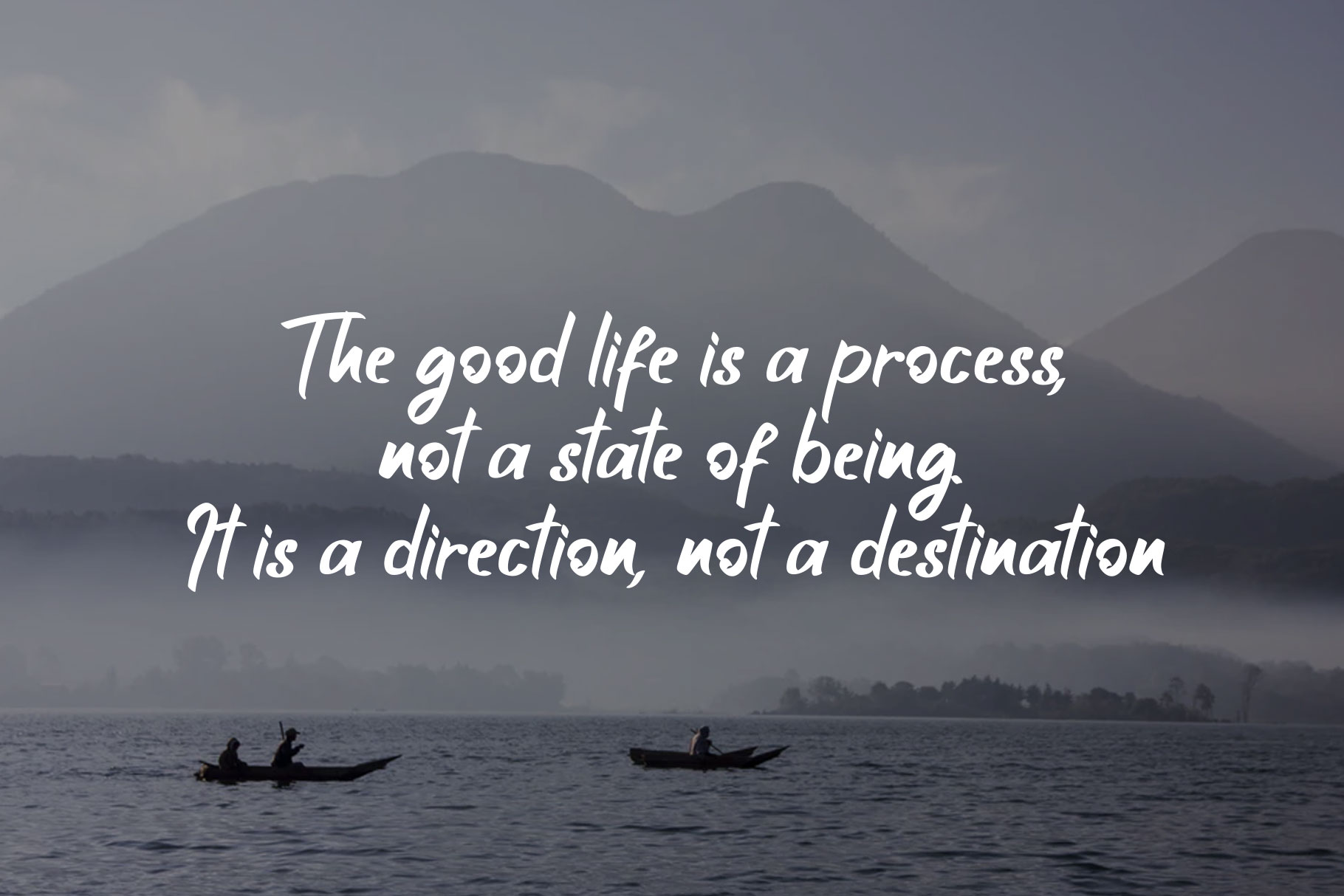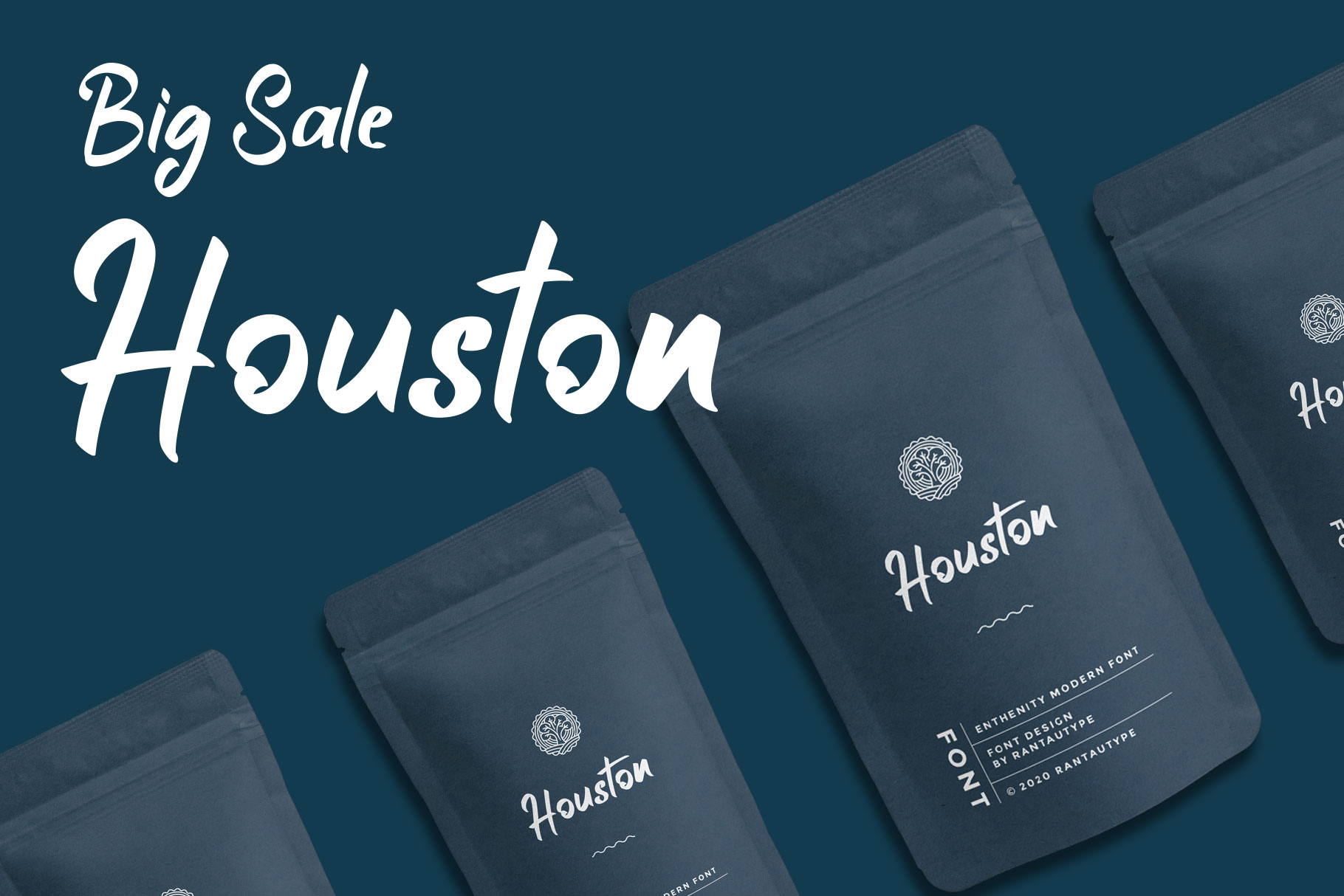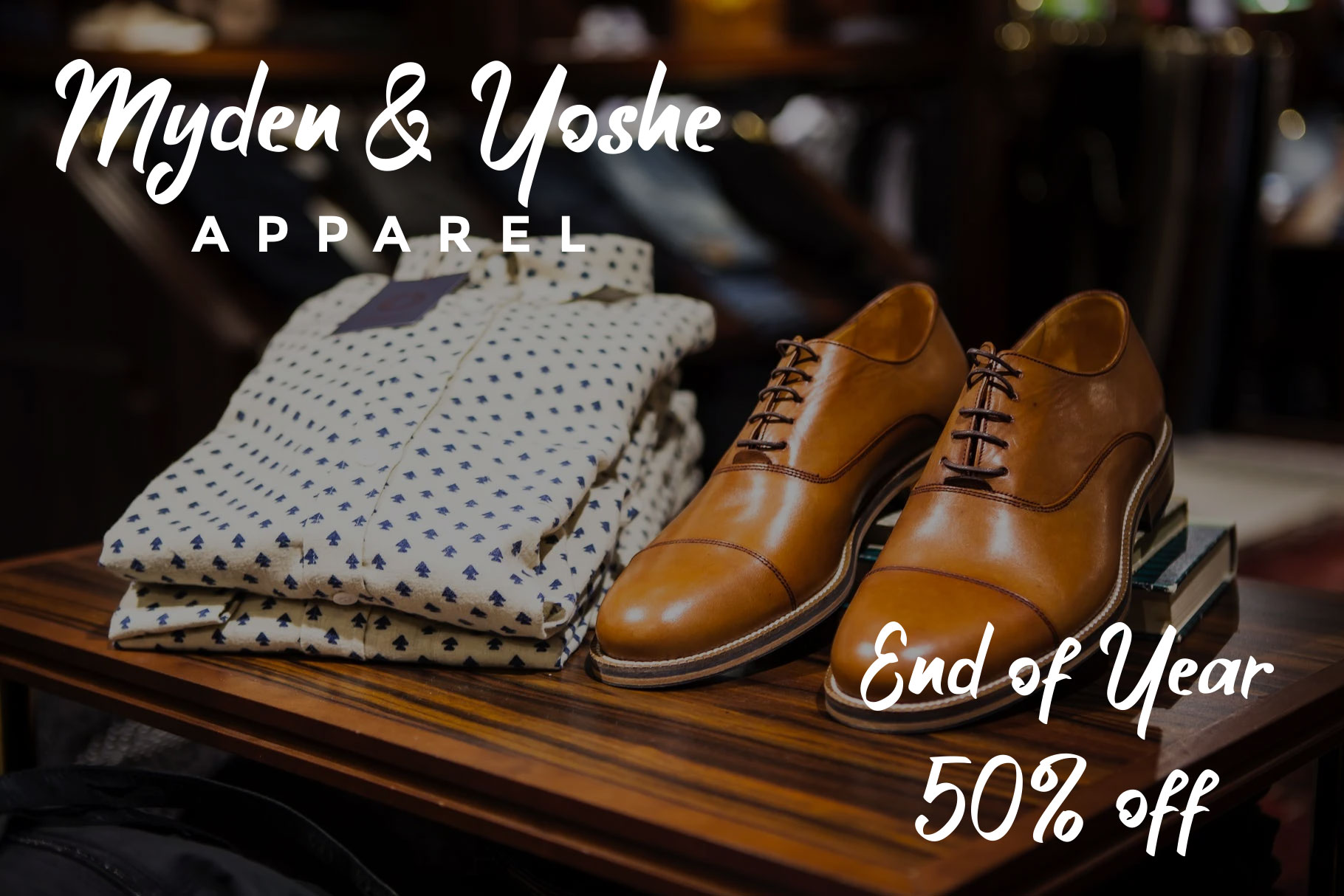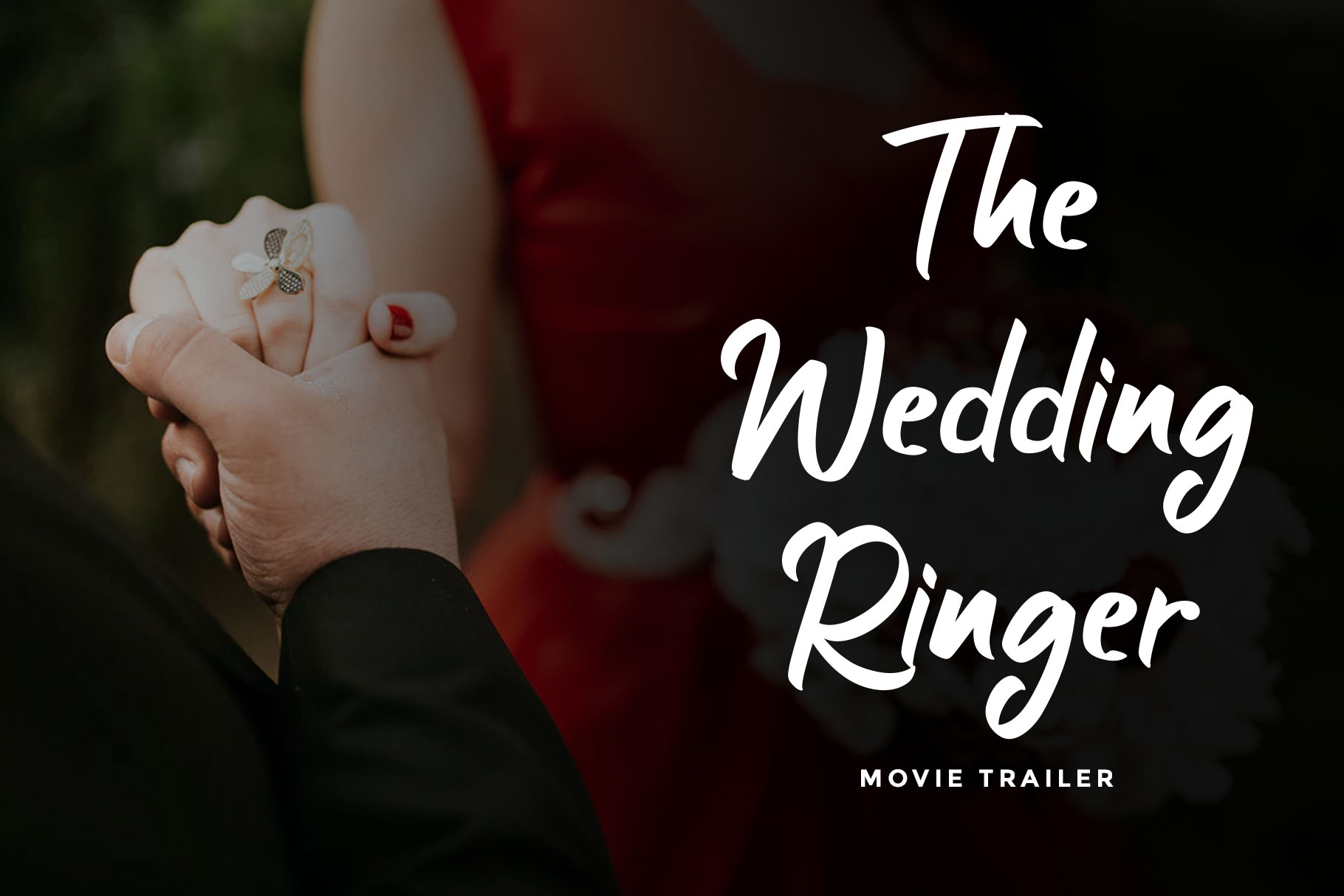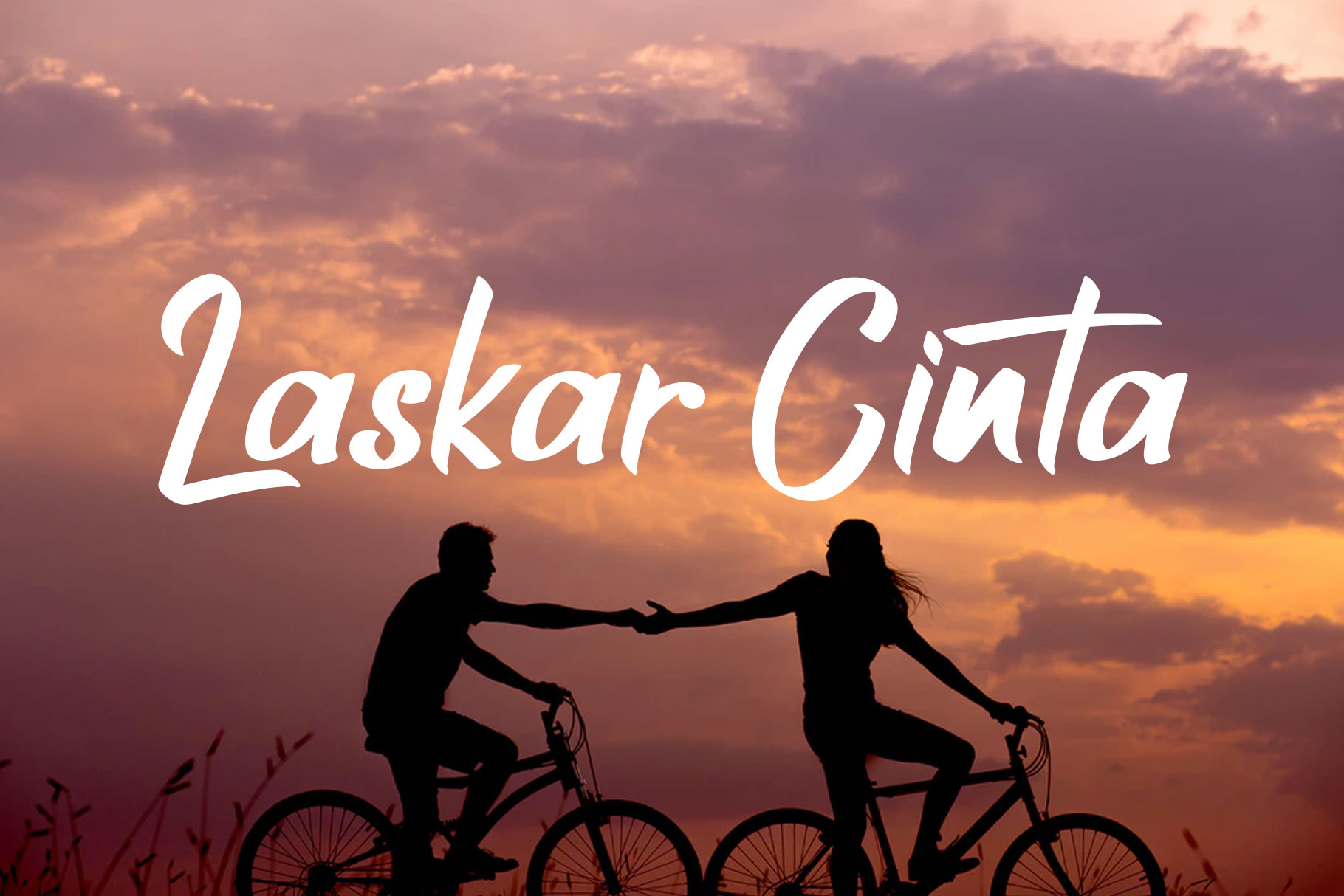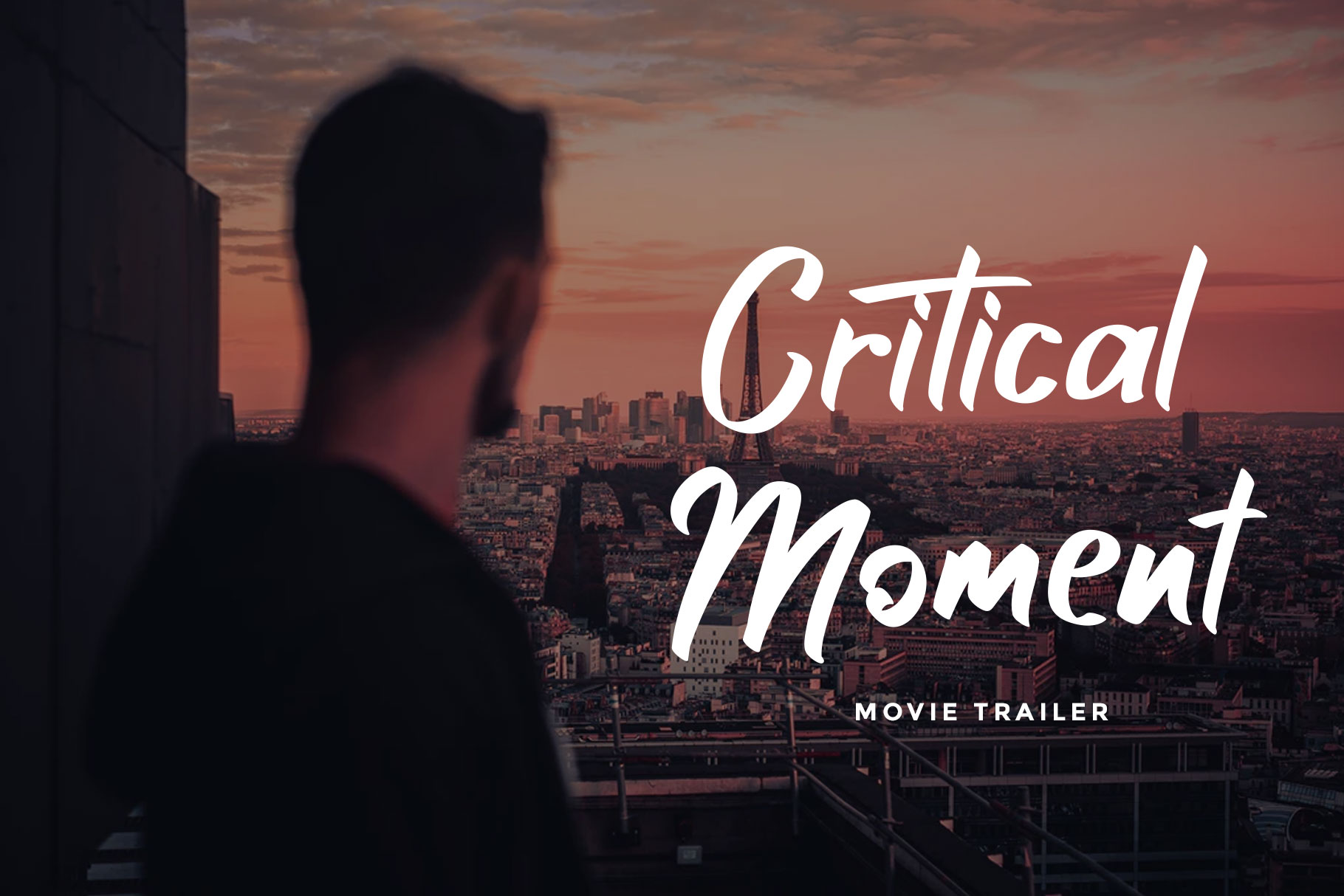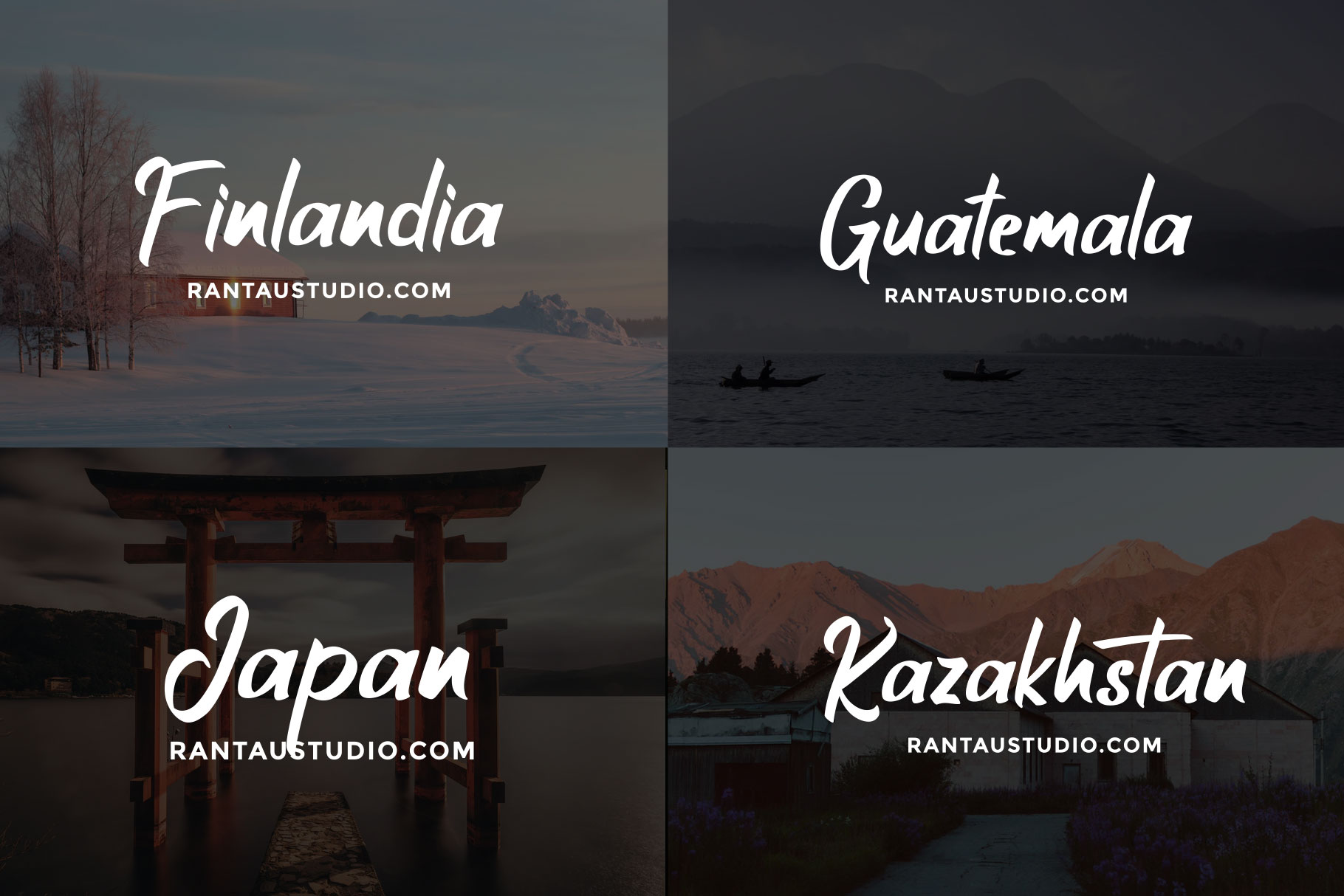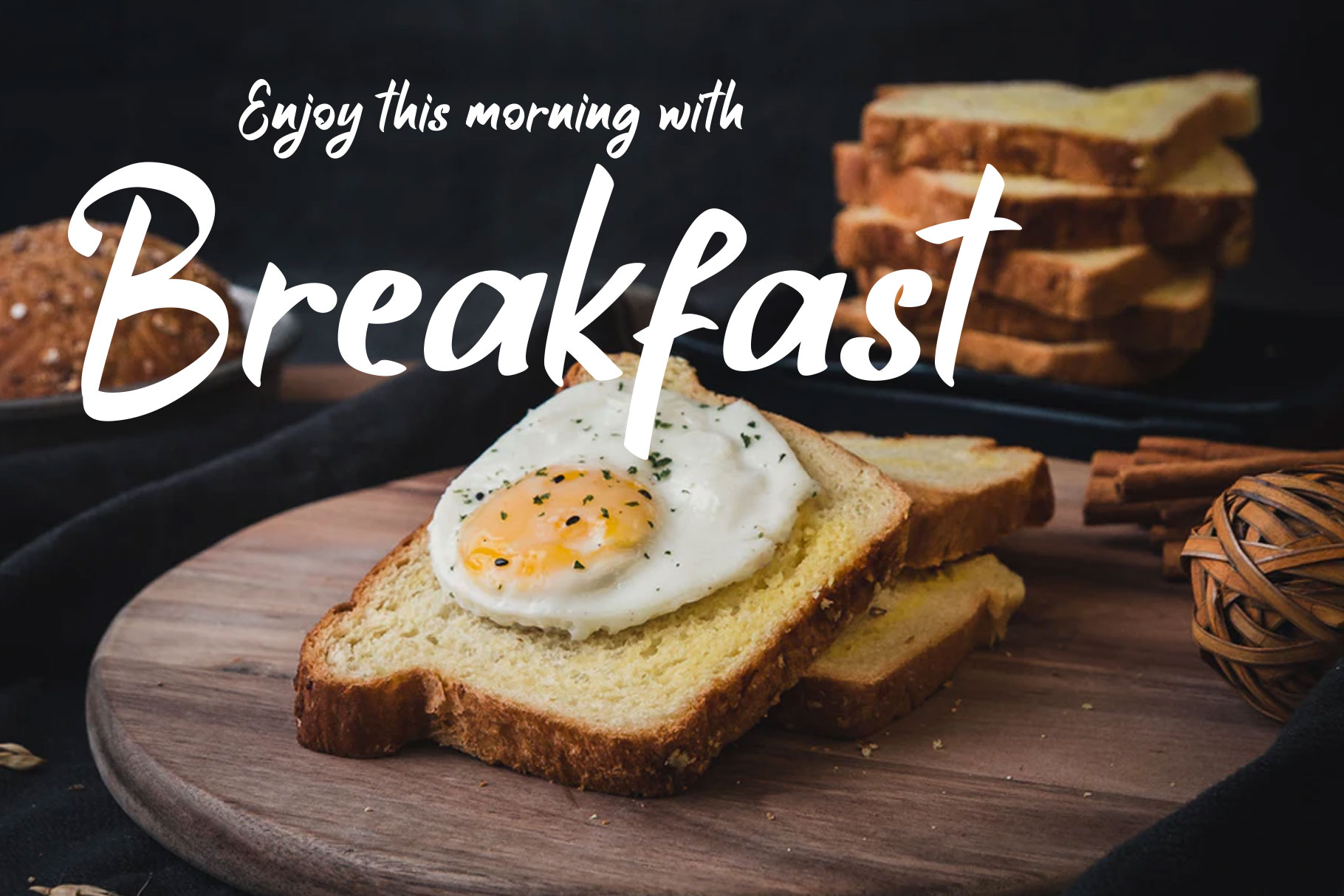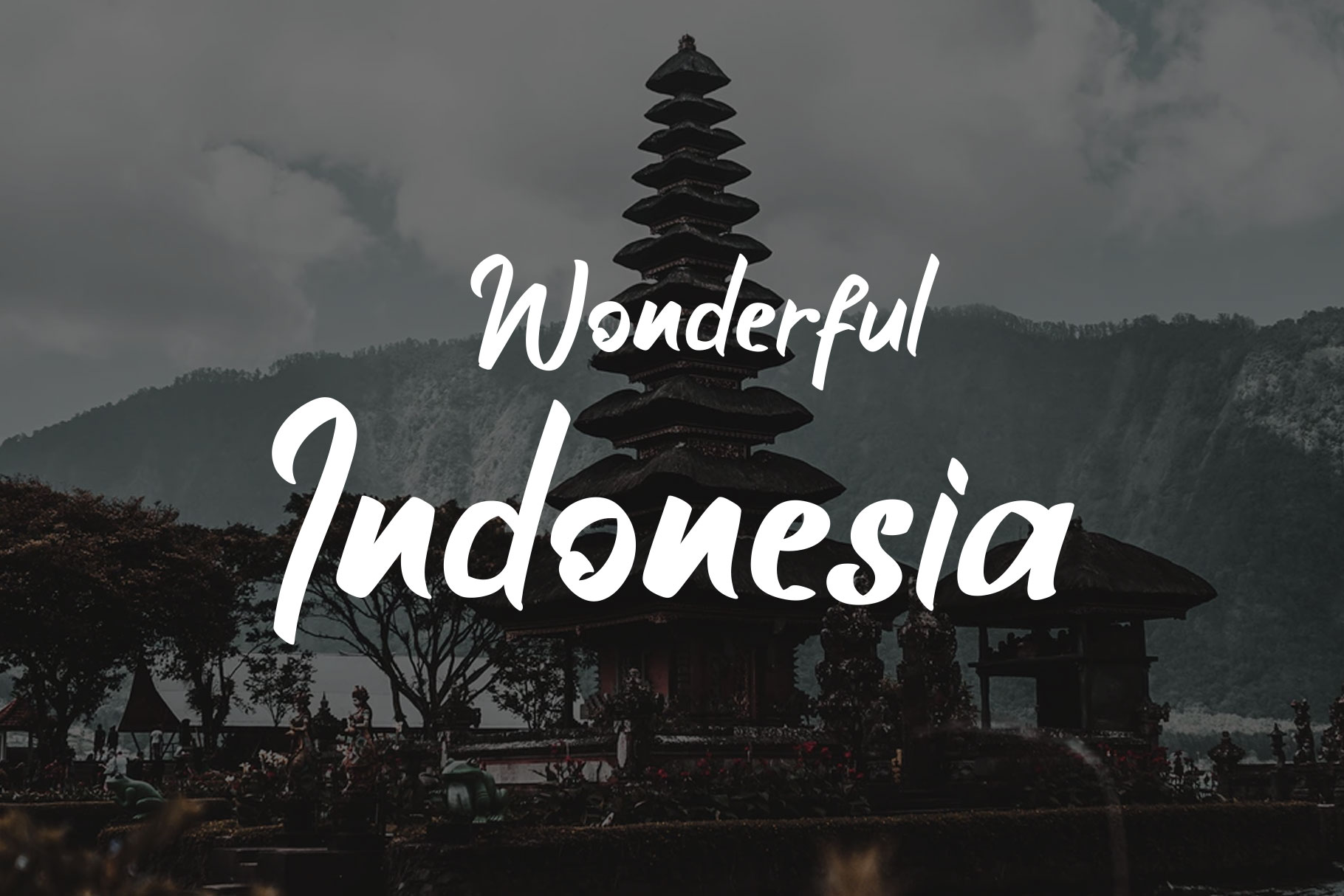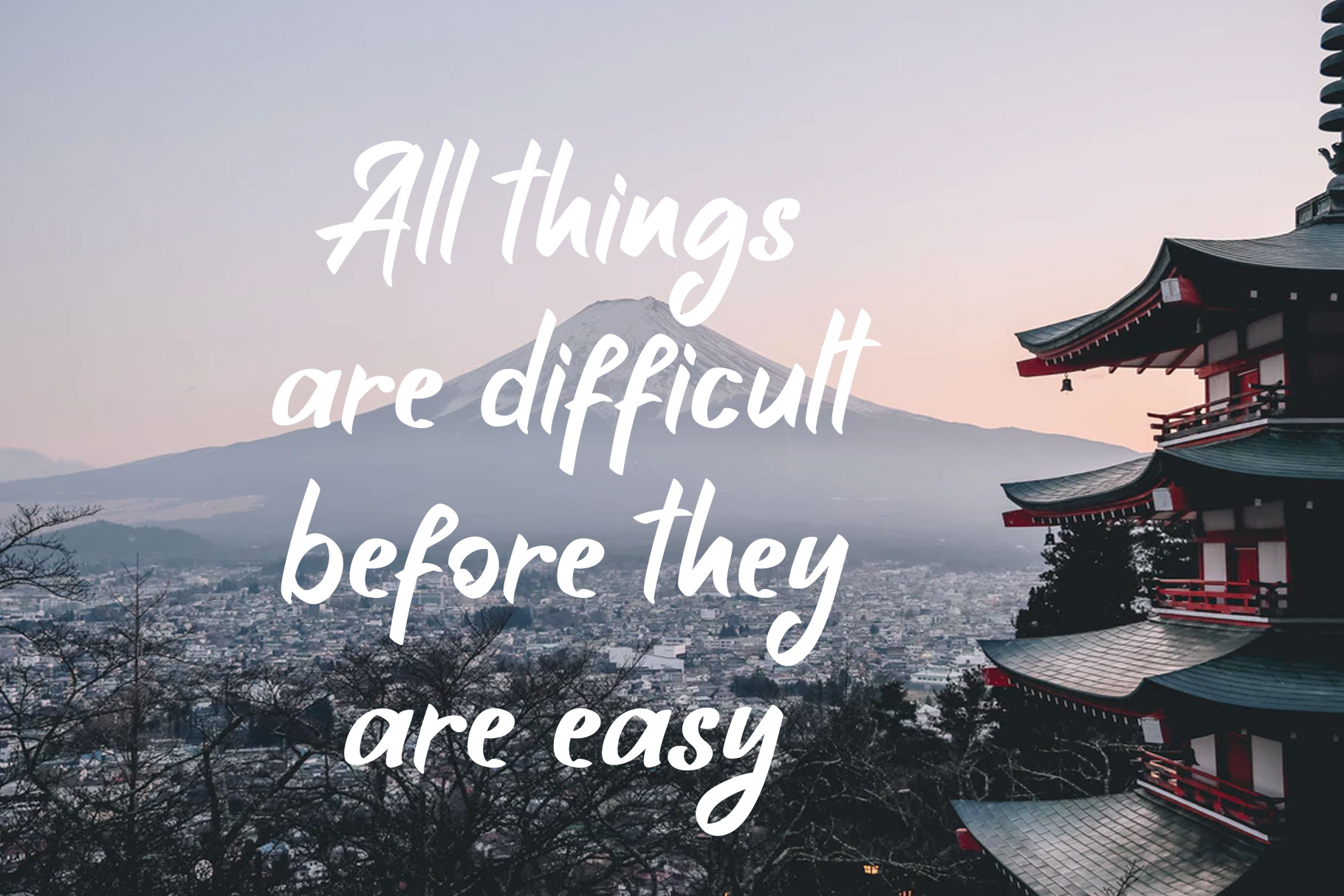
Enthernity Handwritten Font
Enthernity is bold modern authentic font every single curve has my personality touch. It is great for making logotype, branding, promotional ads, quotes design, packaging, t-shirt design. merchandise, poster, merchandise, social media and much more. Enthernity is here to make your work or your business to high level!!!